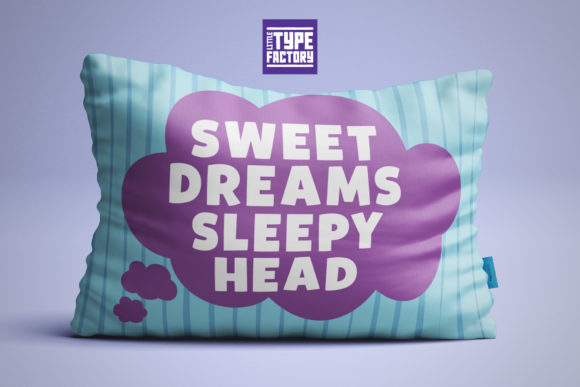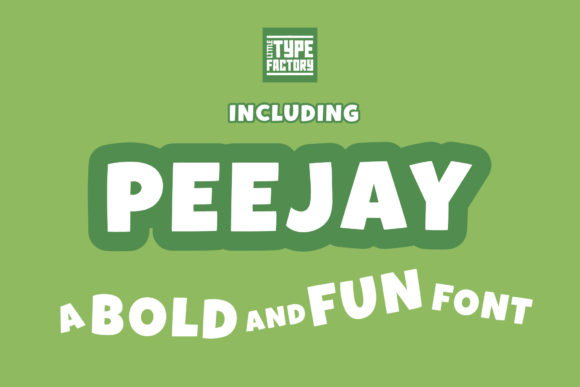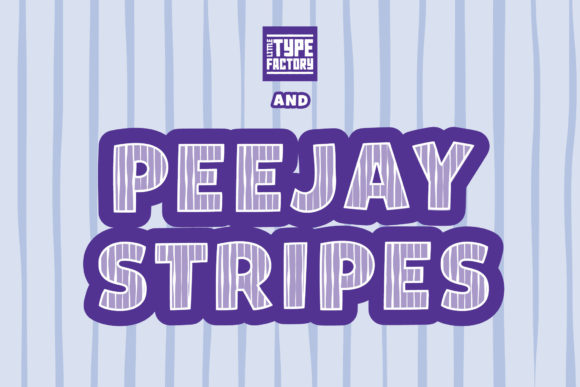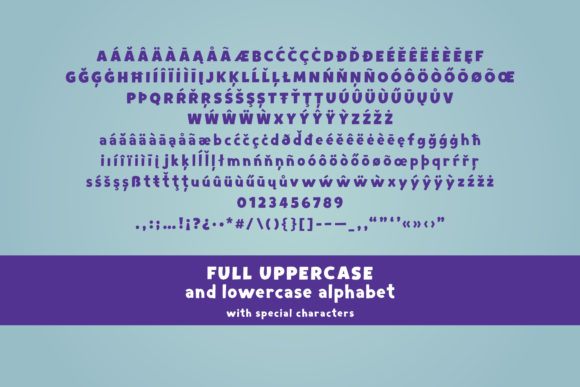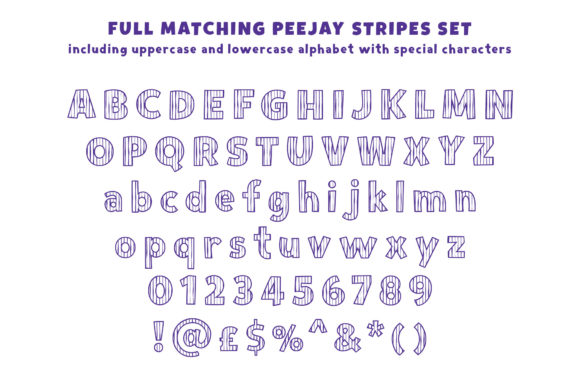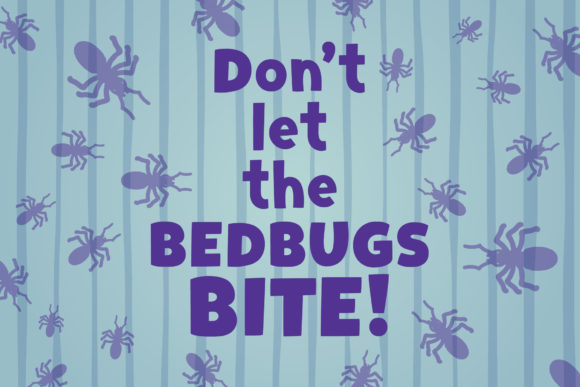
Introduction to Peejay & Peejay Stripes Font
Peejay & Peejay Stripes is an amazing font pair.
These display fonts are friendly and fun, use them together to create wonderful designs .